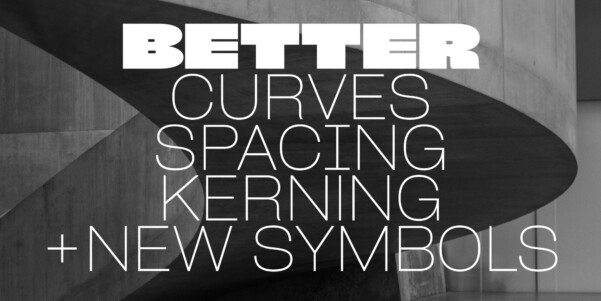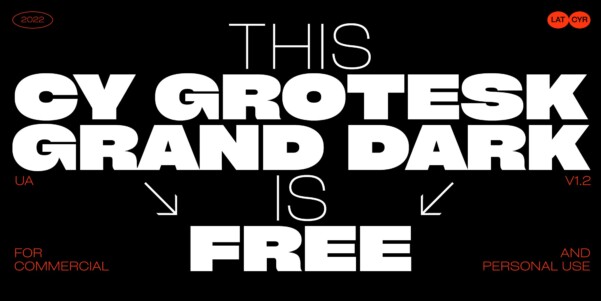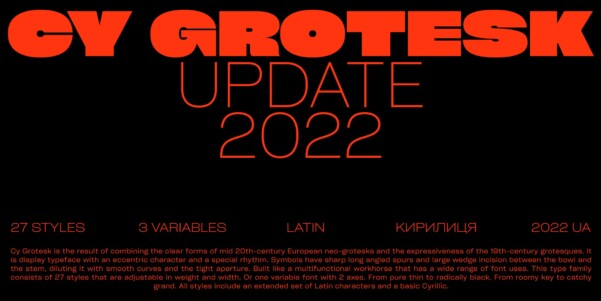
Cy Grotesk Font Family
Cy Grotesk Font Family is the result of combining the clear forms of mid 20th-century European neo-grotesks and the expressiveness of the 19th-century grotesques. It is display typeface with an eccentric character and a special rhythm. Symbols have sharp long angled spurs and large wedge incision between the bowl and the stem, diluting it with smooth curves and the tight aperture. Built like a multifunctional workhorse that has a wide range of font uses. This type family consists of 27 styles that are adjustable in weight and width. Or one variable font with 2 axes. From pure thin to radically black. From roomy key to catchy grand. All styles include an extended set of Latin characters and a basic Cyrillic.